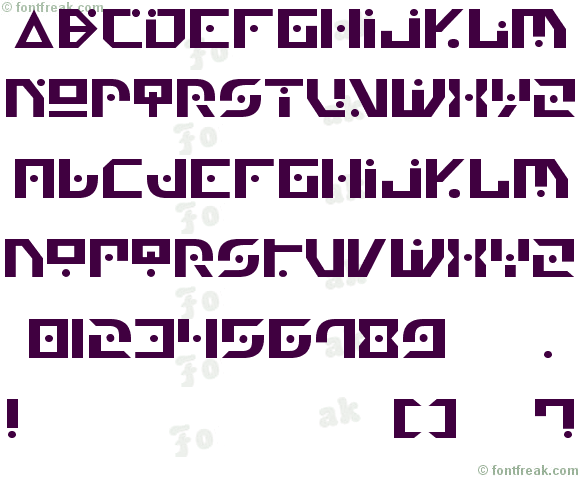
Generation Nth
About Generation Nth
The Generation Nth font by Iconian Fonts is a striking display typeface that captures attention with its unique geometric design. This font features bold, blocky letters characterized by a consistent stroke weight and a modern, futuristic aesthetic. The contrasting elements within the characters create a visually engaging experience, making it stand out in various applications. Its spacing is carefully designed to maintain readability while enhancing the overall visual impact.
Ideal for a variety of creative projects, the Generation Nth font fits seamlessly into designs for technology-focused branding, sci-fi movie posters, video game graphics, and eye-catching advertisements. Its distinctive style allows it to shine in contexts where a modern, edgy look is desired, such as event promotions or digital content aimed at a youthful audience. Graphic designers and content creators will find this font particularly appealing for projects that require a touch of innovation and flair.
The target audience for Generation Nth includes graphic designers, small business owners, and digital marketers looking to create compelling visuals that resonate with their intended audience. Whether used in branding efforts or promotional materials, this font provides a fresh and contemporary feel that can elevate any design.
What makes the Generation Nth font stand out is its ability to merge functionality with artistic expression. As a freeware typeface, it offers accessibility to creatives who want to infuse a modern vibe into their work without compromising quality. For those in search of a bold typeface that combines style and versatility, the Generation Nth font free download is an excellent choice, empowering users to bring their creative visions to life with confidence.